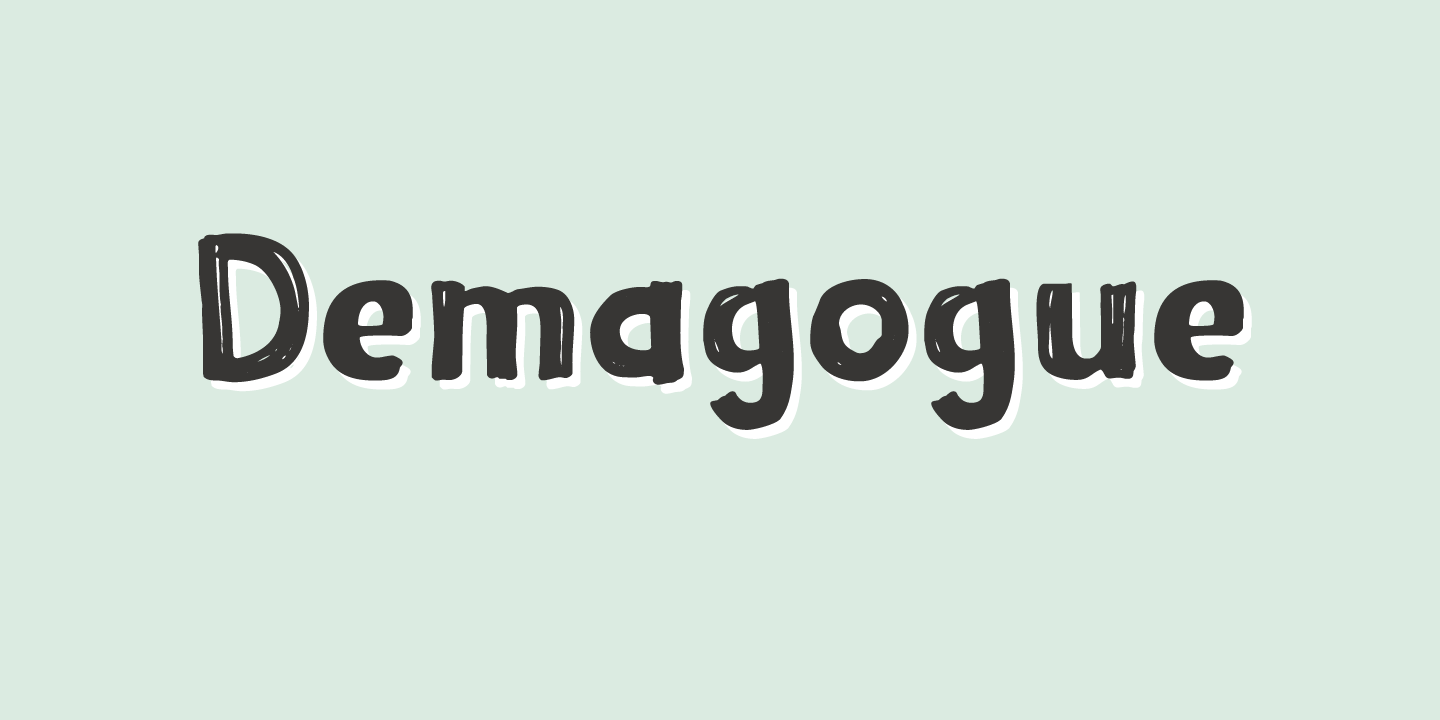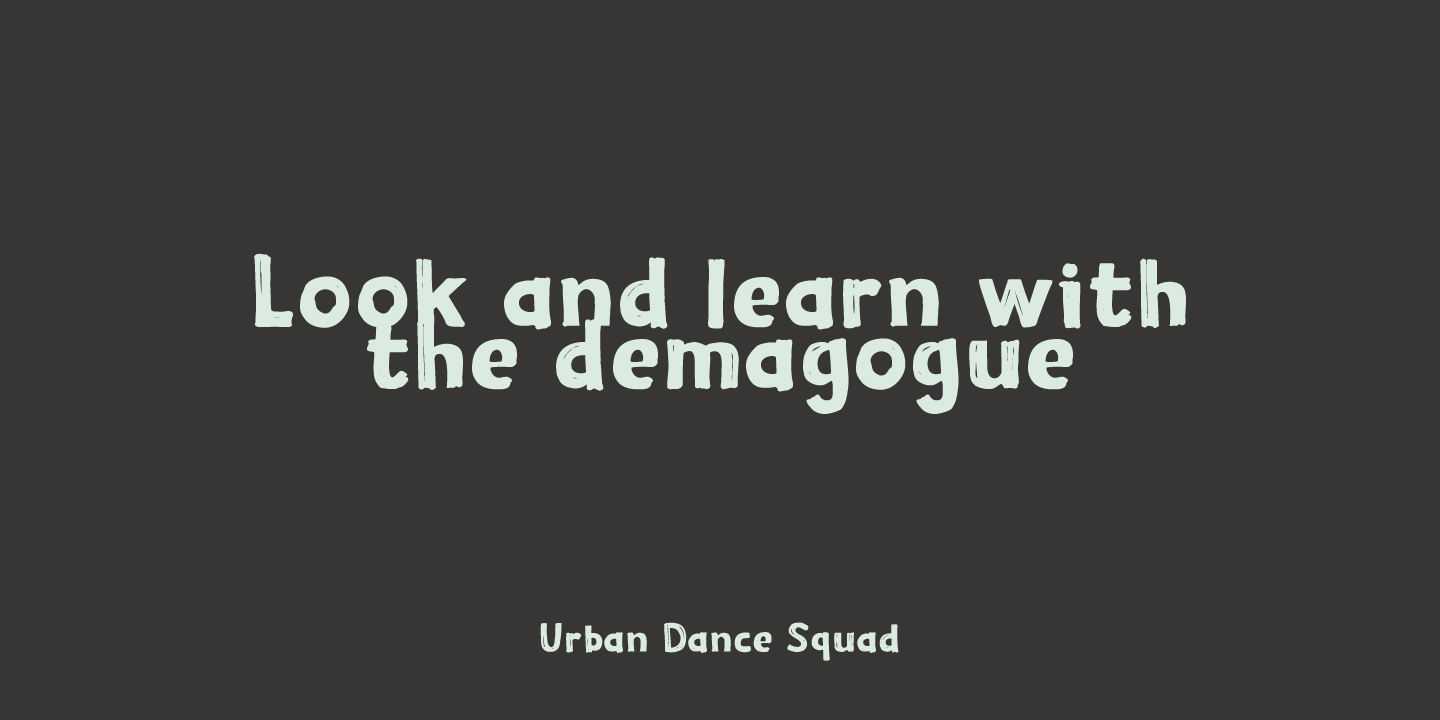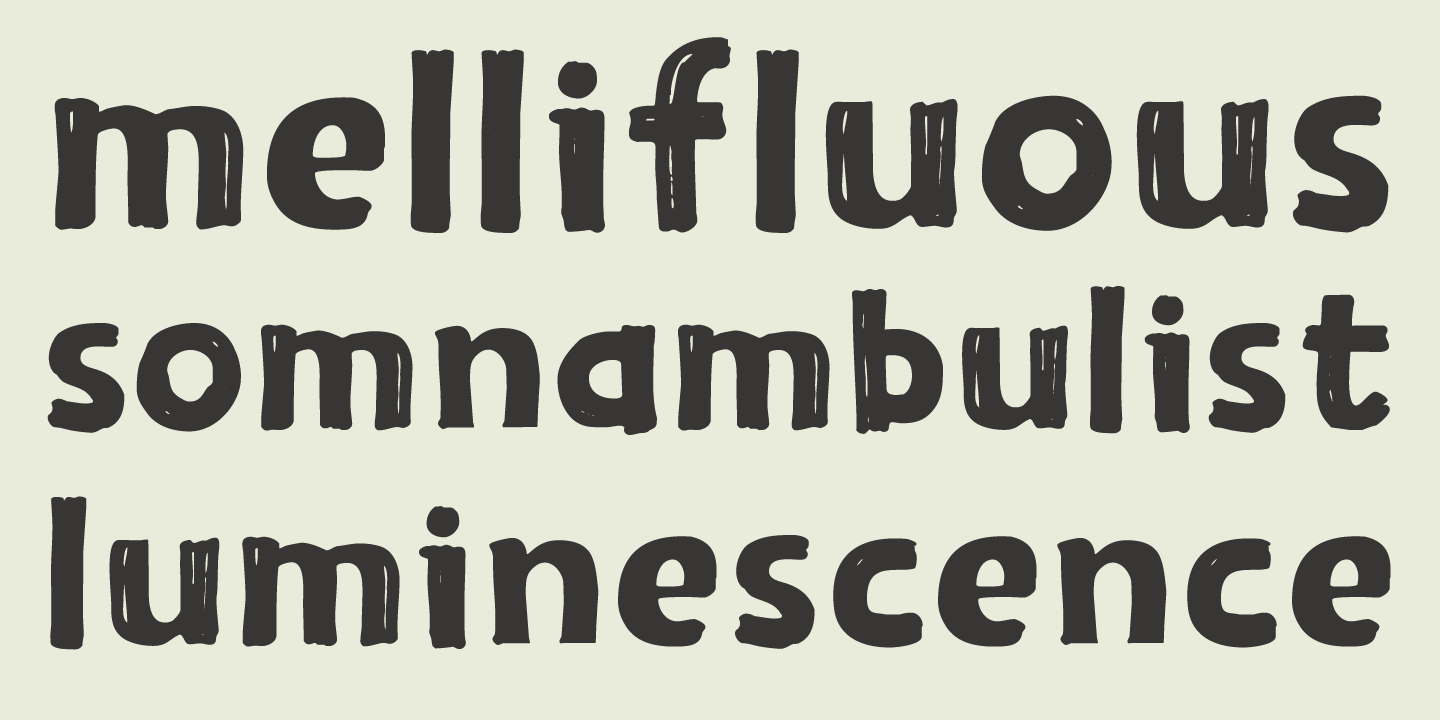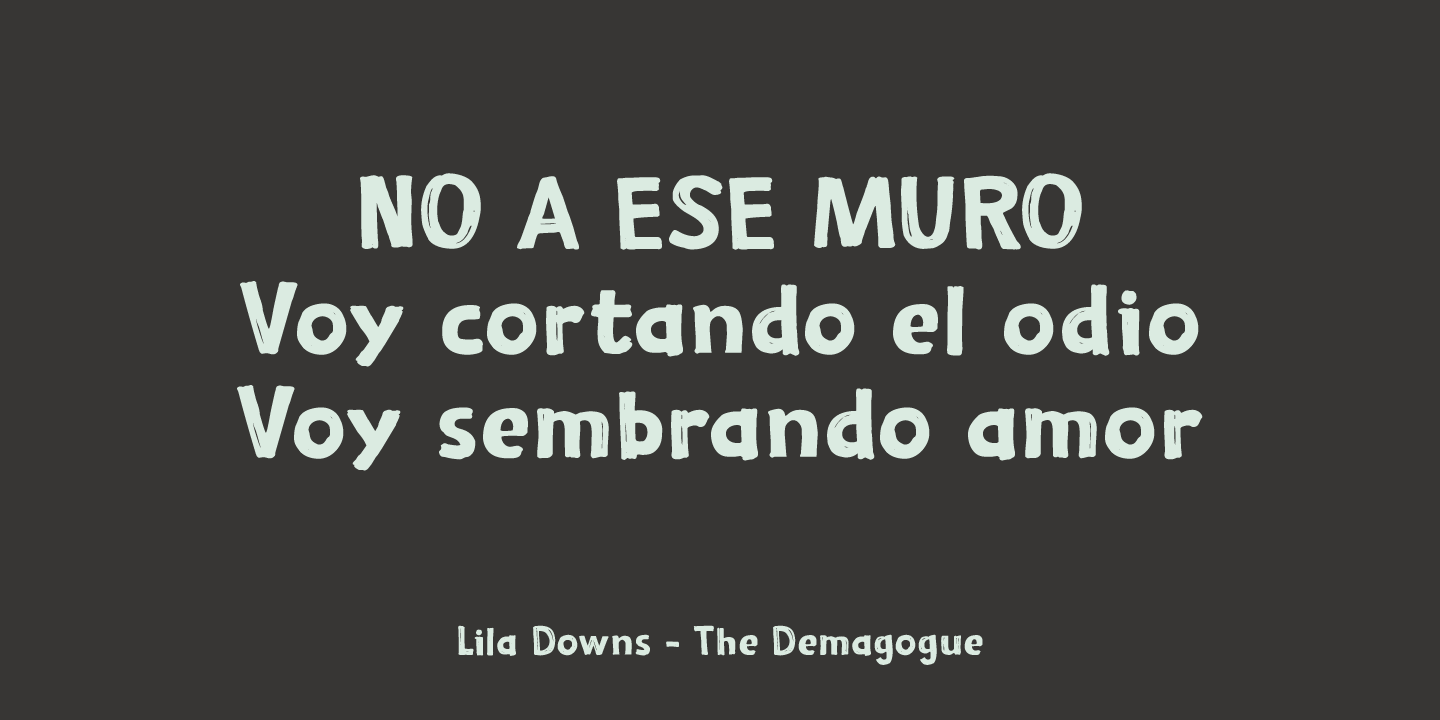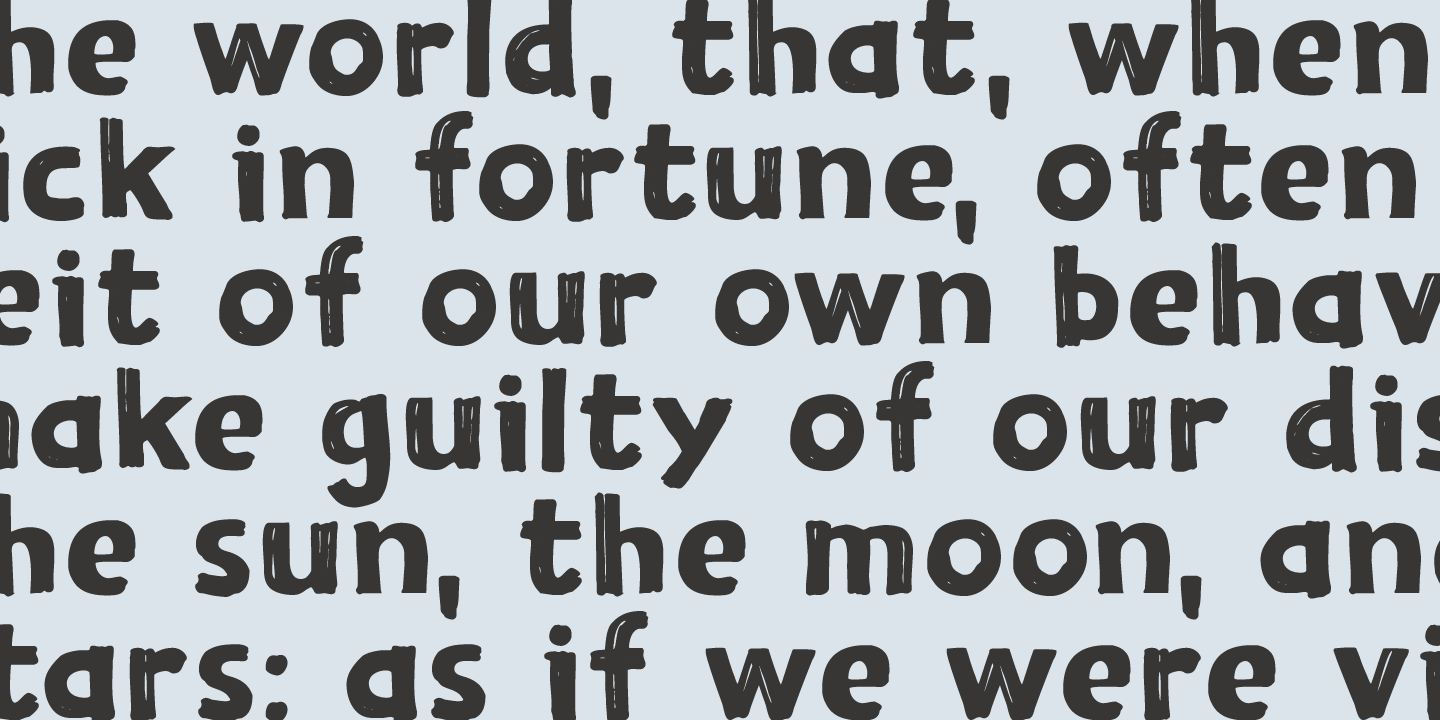
Demagogue
Font Family by Hanoded
I was listening to the radio and a song caught my attention. It was ?Demagogue? by a band called the Urban Dance Squad. That song brought back memories from when I was a student, so I decided to name this font after it.
Demagogue was made using a Sharpie pen and a piece of expensive paper. The result is a very legible, very neat and very bold font. Demagogue is ideal for when you want to get your message across, but hopefully not in a demagogue-ish way! ;-)